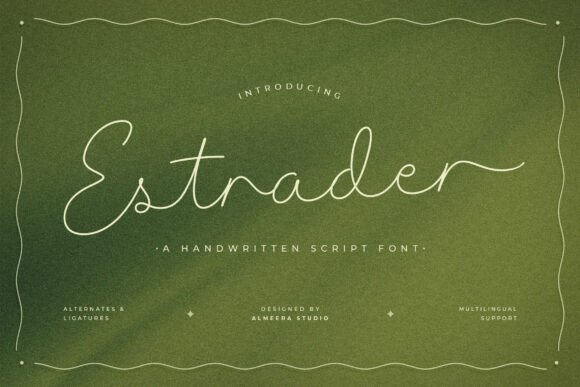
Estrader Font: The Epitome of Simplicity and Elegance in Typography
In the realm of typography, few fonts manage to strike a balance between simplicity and elegance as effortlessly as Estrader. This handwritten script font has been gaining attention for its unique ability to convey warmth, friendliness, and a personal touch in any design it adorns. Whether you’re working on branding, invitations, quotes, packaging, stationery, or any creative project that yearns for a dash of authenticity and charm, Estrader is the perfect choice. In this article, we’ll delve into the features, applications, and benefits of using Estrader in your design endeavors.
Key Features of Estrader Font
- Fine Monoline Strokes: Estrader boasts fine monoline strokes that contribute to its elegant and sophisticated look. The uniformity of these strokes brings about a sense of harmony and balance, making it visually appealing.
- Naturally Flowing Rhythm: One of the standout features of Estrader is its naturally flowing rhythm. This aspect ensures that the text appears fluid and organic, enhancing readability and aesthetic appeal.
- Alternates & Ligatures: Estrader comes equipped with alternates and ligatures, offering designers a wide range of creative possibilities. These features allow for customization and flexibility, enabling the creation of unique and captivating typography.
- Multilingual Support: With complete multilingual support, Estrader is versatile and inclusive. Designers can use it for projects targeting a global audience, without worrying about language limitations.
Ideal Applications for Estrader Font
Estrader’s versatile nature makes it suitable for a myriad of design applications. Here are some of the areas where Estrader truly shines:
- Branding: Estrader can help brands establish a personal and approachable identity. Its elegance and simplicity make it an excellent choice for logos, business cards, and corporate materials.
- Invitations: For wedding invitations, birthday parties, or any other event, Estrader adds a touch of sophistication and warmth, setting the tone for a memorable occasion.
- Quotes and Typography: The font’s natural flow and elegance make it perfect for displaying quotes, sayings, and other textual content in a visually appealing manner.
- Packaging: Estrader can elevate product packaging by adding a personal touch, making products stand out on shelves and conveying a brand’s story.
- Stationery: Letters, notes, and stationery designed with Estrader exude a sense of warmth and personality, making written communication more special.
Benefits of Using Estrader Font
Choosing Estrader for your design projects comes with numerous benefits, including:
- Authenticity: Estrader brings an authentic feel to designs, helping to create a genuine connection with the audience.
- Charm: The font’s inherent charm and character can make any design more engaging and captivating.
- Flexibility: With its range of alternates, ligatures, and multilingual support, Estrader offers designers the flexibility to experiment and innovate.
- Sophistication: Despite its simplicity, Estrader exudes a level of sophistication that can elevate any design.
Tips for Using Estrader Effectively
To maximize the potential of Estrader, consider the following tips:
- Pair with Complementary Fonts: Estrader pairs well with clean sans-serif fonts for body text or serif fonts for a more traditional look.
- Adjust Letter Spacing: Tweak letter spacing to enhance readability and ensure the text flows well.
- Utilize Alternates and Ligatures: Experiment with alternates and ligatures to add uniqueness to your typography.
- Consider Color and Background: Choose colors and backgrounds that complement Estrader’s elegant and warm aesthetic.
Estrader font is a remarkable addition to the world of typography, offering a perfect blend of simplicity, elegance, and personality. Its fine monoline strokes, naturally flowing rhythm, and comprehensive feature set make it an ideal choice for designers seeking to add warmth, authenticity, and charm to their projects. Whether you’re working on branding, invitations, quotes, packaging, or stationery, Estrader is sure to deliver a sophisticated and engaging visual experience. By incorporating Estrader into your design toolkit, you’ll be equipped to create captivating and memorable typography that resonates with audiences worldwide.
Embracing Estrader in Your Design Journey
As you explore the vast possibilities of Estrader, remember that typography is not just about conveying information but also about evoking emotions and creating connections. Estrader, with its unique blend of elegance and simplicity, stands as a powerful tool in your design arsenal, ready to bring your creative visions to life with authenticity, charm, and sophistication.